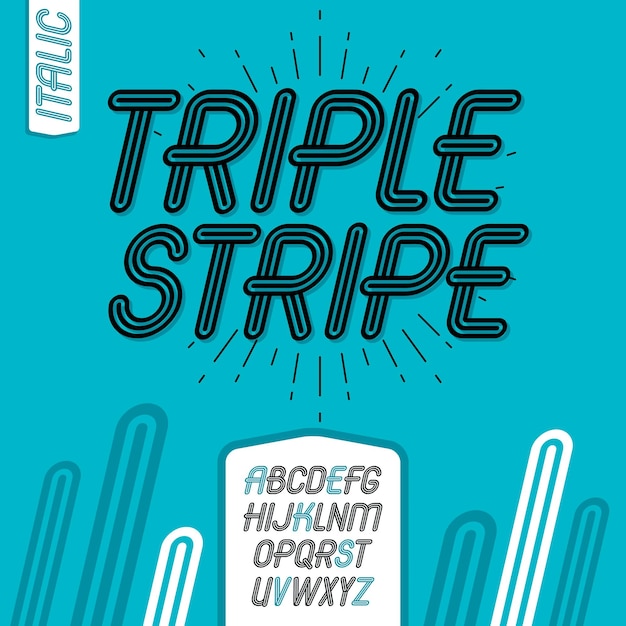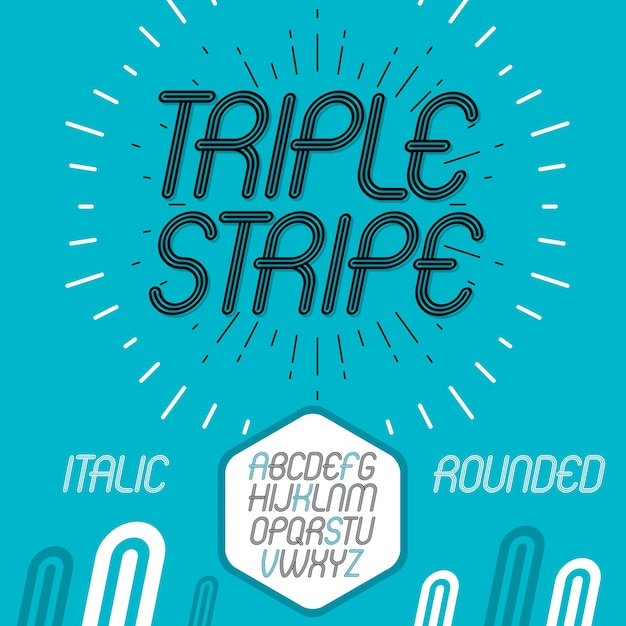
Set of disco vector upper case English alphabet letters isolated. Funky rounded font, typescript for use in logo design. Made with geometric parallel triple lines.